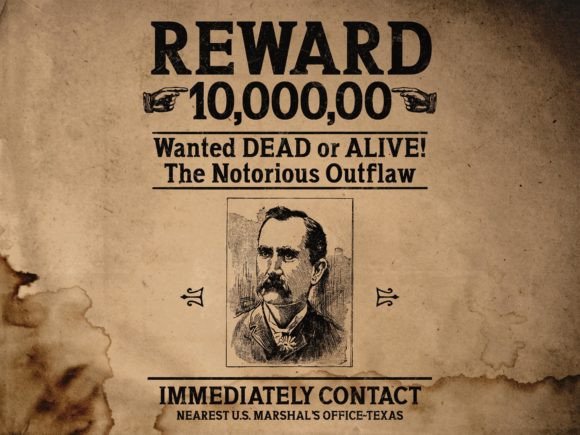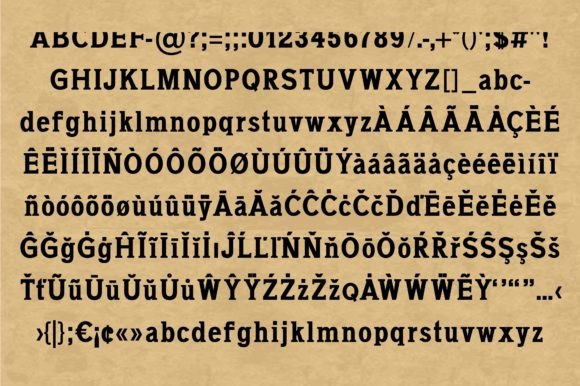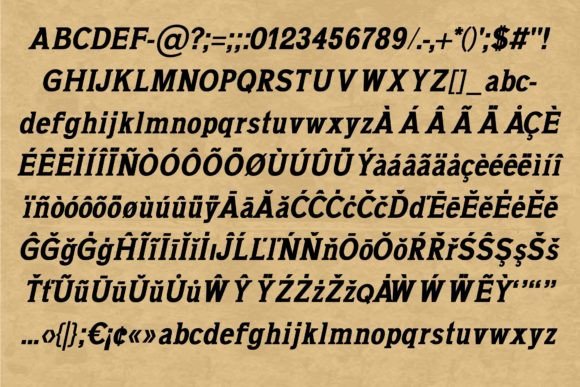
Texas Font
Texas is an American slab serif typeface that expresses the wild west cowboy American culture. It can be used to create themes such as shown in the font covers and it can fit perfectly any vintage, retro theme without any problems. it can be used for book covers, magazines, comic magazines, posters, cartoon production and many more!